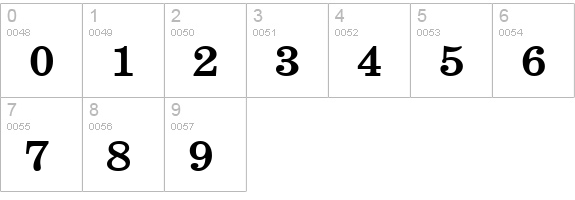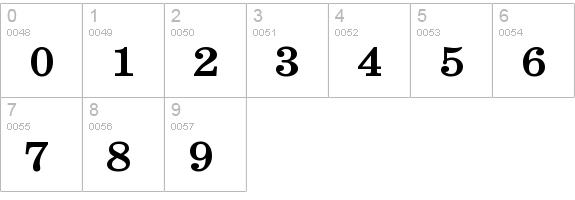
Annual-Extended Bold is a strong, high-contrast, extended-width variant in the Annual typeface family \xE2\x80\x94 well suited to headlines, attention-grabbing titles, and strong calls-to-action.
Annual-Extended Bold is a striking and versatile typeface that commands attention with its bold and modern design. This font is perfect for making a statement or emphasizing important text in various design projects. Its clean lines and strong presence make it a standout choice for headlines, titles, and branding materials. What's even better is that Annual-Extended Bold is available for free download at FontsMarket.com. This means you can easily access and use this eye-catching font in your projects without any cost. Whether you're creating posters, flyers, logos, or any other design, Annual-Extended Bold will add a touch of boldness and sophistication to your work. Don't miss out on this fantastic opportunity to enhance your designs with this exceptional font.